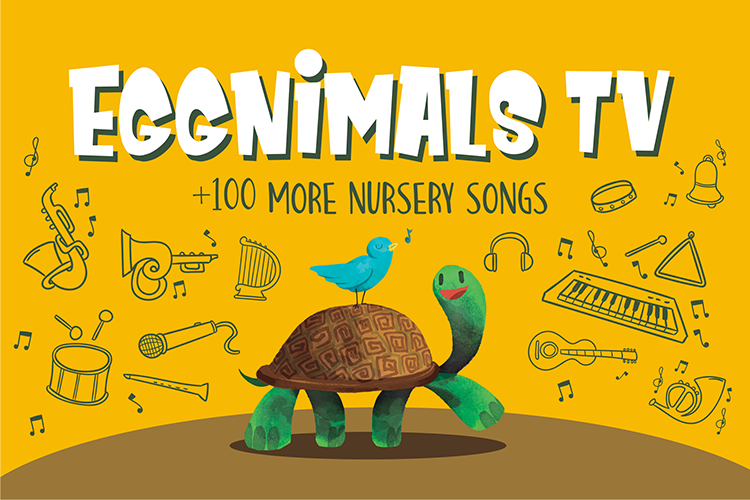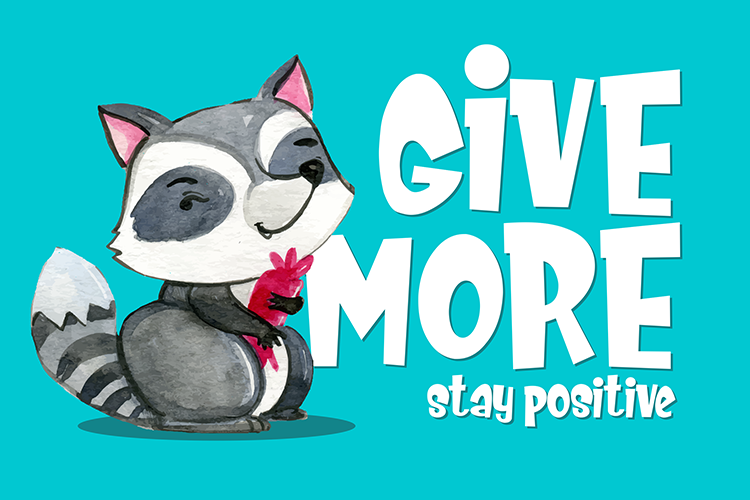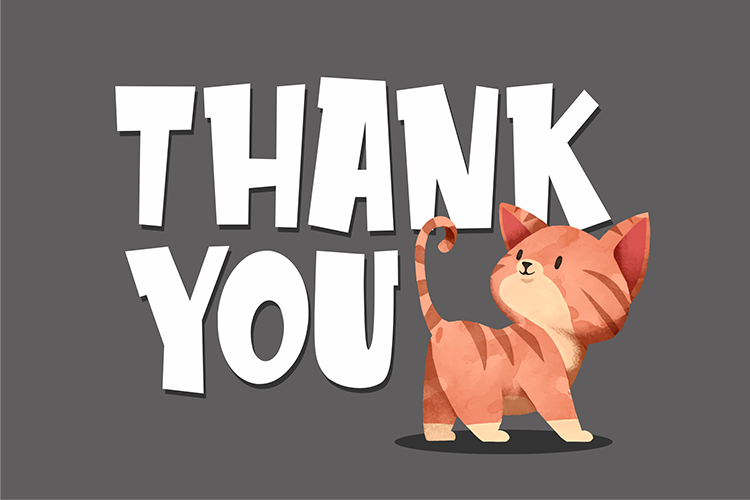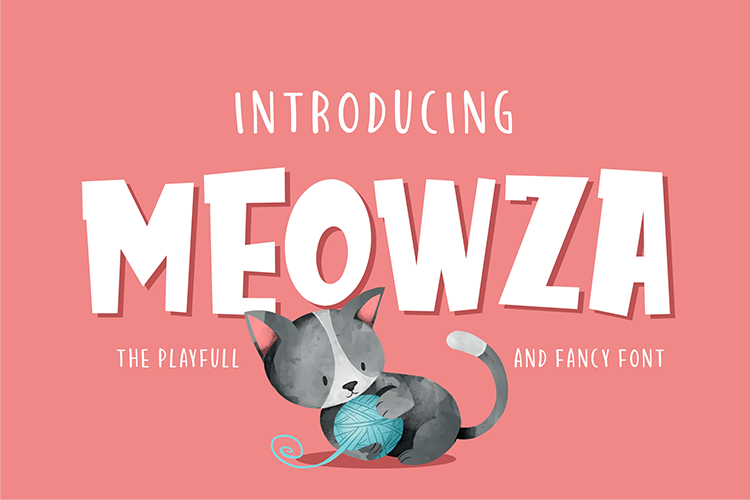
Meowza Playfull and Fancy Font
Hello Guys, This is a fun and youthful font, is a perfect complement to your font collection. Introducing Meowza Font. The Meowza is a playfull and fancy font, inspired by my little kids. Use meowza for posters, t-shirt design, youtube channel cover or anything you want.